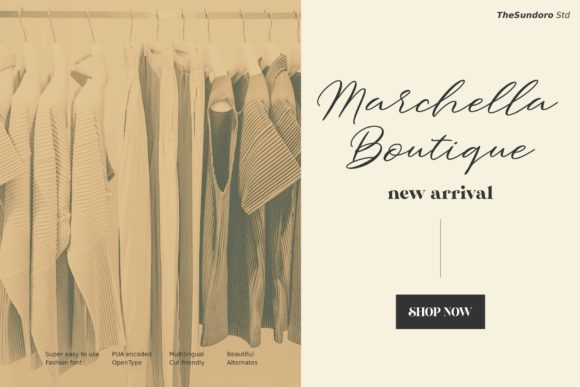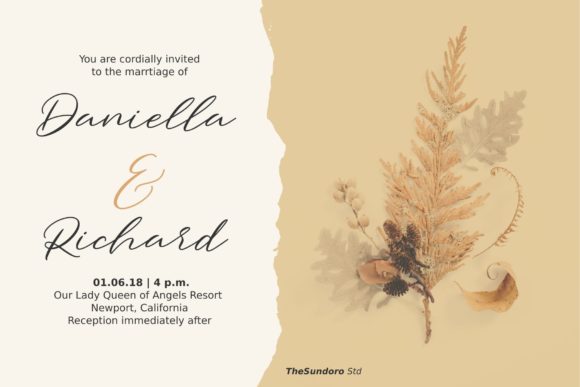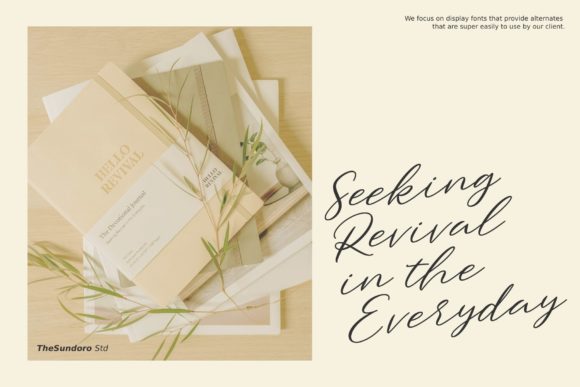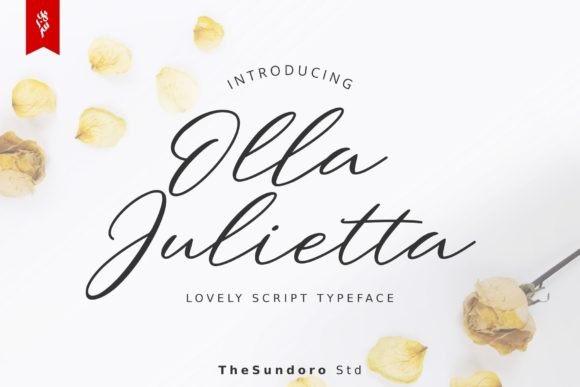
Introduction to Olla Julietta Font
Olla Julietta feels incredibly elegant and flowing.
It looks stunning on wedding invitations, thank you cards, quotes, greeting cards, logos, business cards and every other design which needs a handwritten touch It features a varying baseline, smooth lines, gorgeous glyphs and stunning alternates.
Key Features of Olla Julietta Font
Why Choose Olla Julietta Font?
Olla Julietta Font offers exceptional quality and versatility, making it a valuable addition to your design toolkit. Whether you’re creating for personal projects or commercial use, Olla Julietta Font delivers professional results.